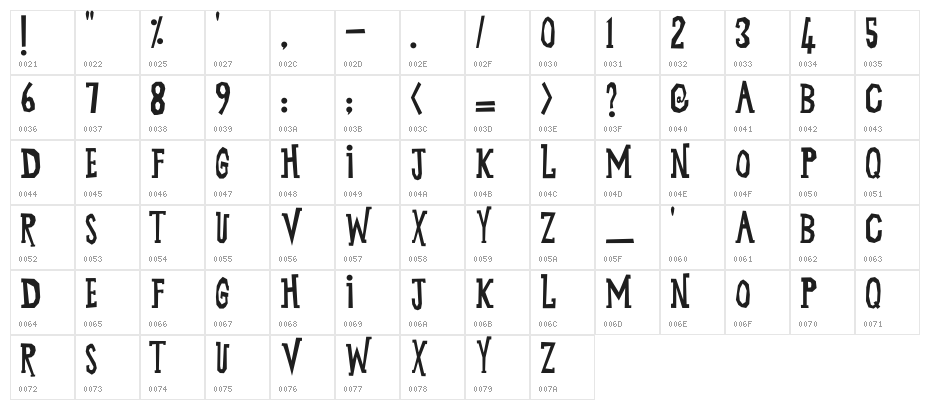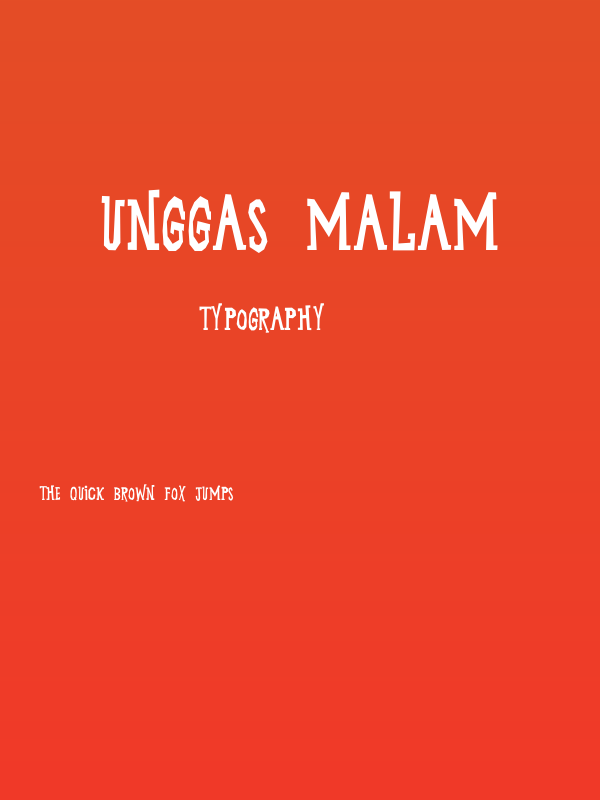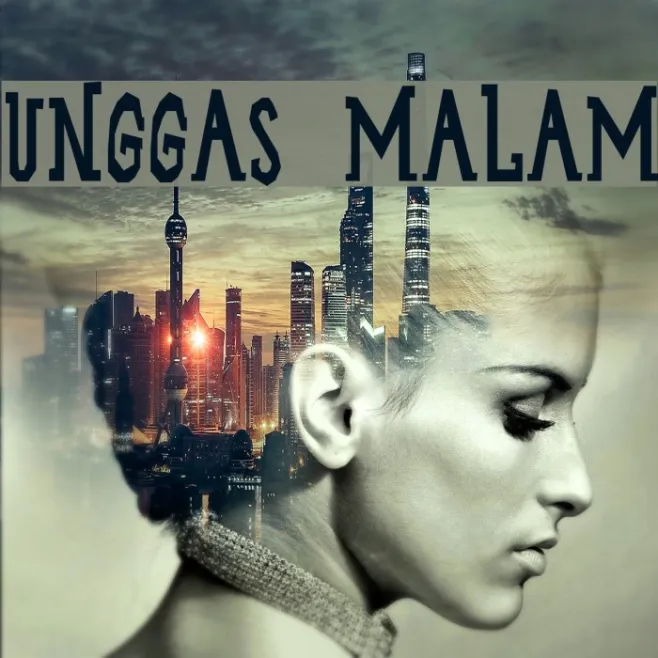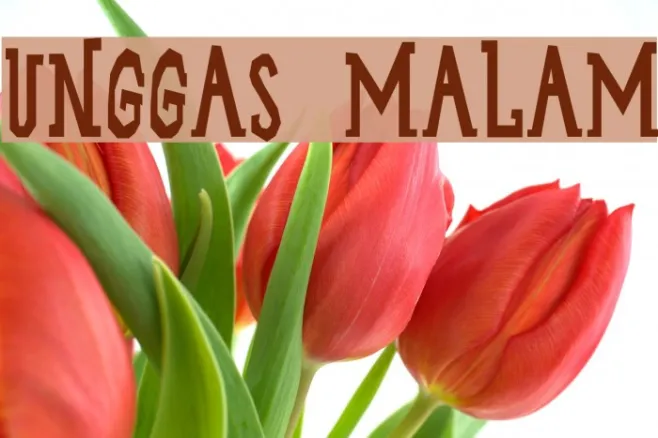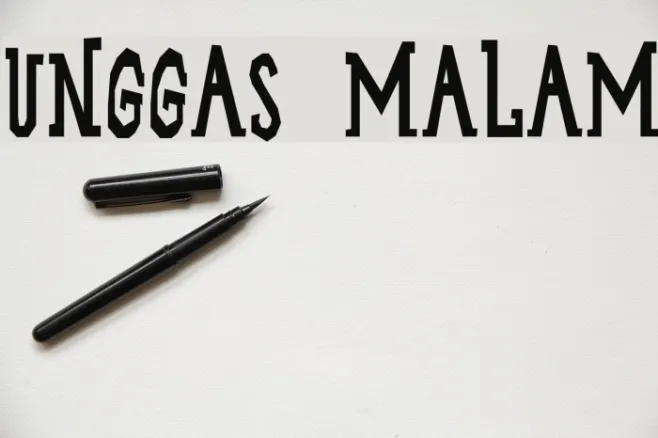
Unggas Malam Font
Unggas Malam Description
This font features a bold and striking design with a unique, angular style that gives it a distinctive, edgy appearance. The uppercase letters are characterized by sharp, geometric shapes, while the lowercase letters maintain a consistent angular theme. The numbers and special characters follow the same stylistic approach, ensuring a cohesive look across all characters. The font's boldness and angularity make it stand out, making it ideal for attention-grabbing designs. Its high contrast in stroke thickness adds to its dramatic effect, making it suitable for projects that require a strong visual impact.
| Proposed Projects | Ideal for posters, album covers, branding, and any project needing a bold, eye-catching typeface. |